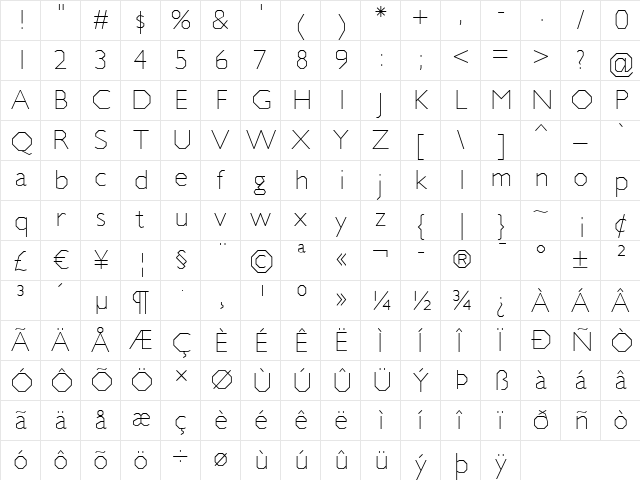
Jillican ExtraLight Regular
Design Context for Jillican ExtraLight Typeface
Jillican ExtraLight offers clean, dependable letterforms without strong stylistic allegiance, making it a practical choice for designers who need flexibility. The delicate stroke weight brings airiness and refinement to layouts.